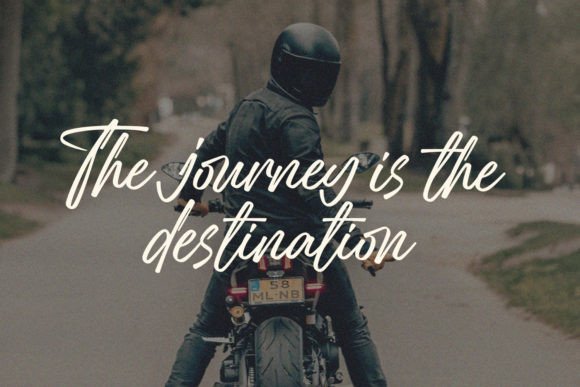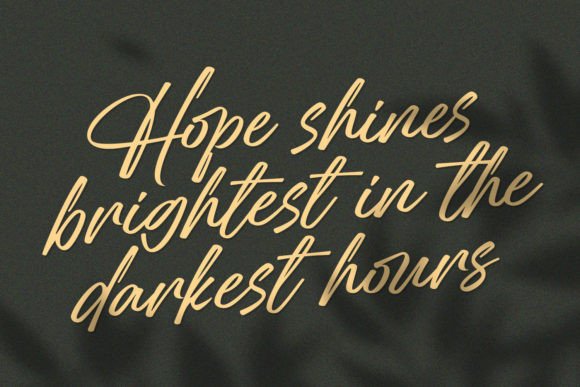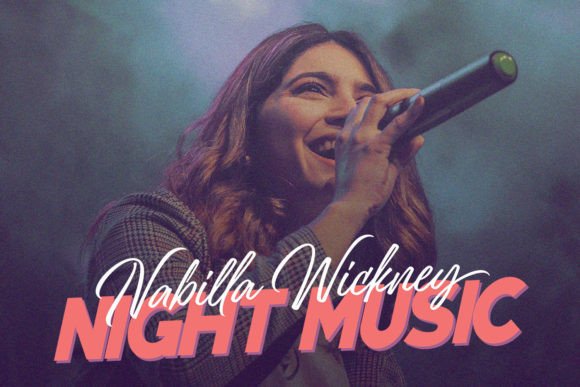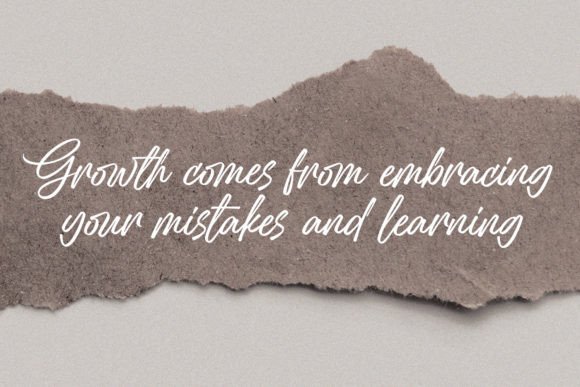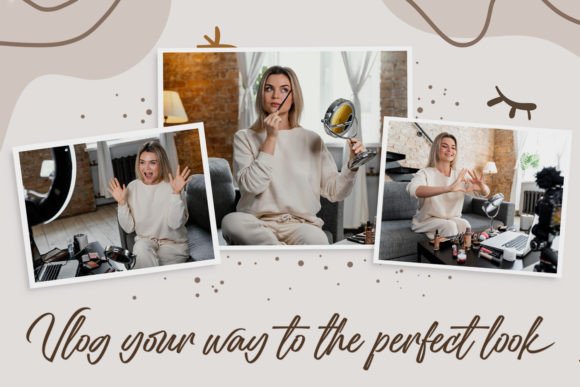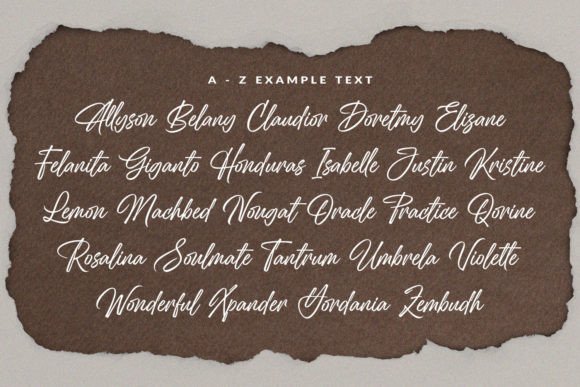
Introducing Antaresia Font: Elevate Your Designs with Elegance
In the world of typography, a well-crafted font can make all the difference in elevating your design to the next level. For designers and crafters seeking to add a touch of sophistication and elegance to their work, Antaresia Font is an exceptional choice. This beautiful, handwritten font is perfect for a variety of design applications, from posters and logotypes to album covers, signatures, and invitations.
The Elegance of Antaresia Font
Antaresia Font is characterized by its elegant, flowing script that exudes refinement and luxury. Its unique, hand-crafted aesthetic lends a personal and distinctive touch to any design project. Whether you’re aiming to create a lasting impression with a bold statement or seeking to add a subtle nuance to your work, Antaresia Font provides the perfect typographic solution.
One of the key benefits of Antaresia Font is its versatility. This font is not limited to a specific design genre or application. Instead, it can be seamlessly integrated into a wide range of projects, including:
- Posters: Create eye-catching posters that command attention with Antaresia Font’s elegant and bold lettering.
- Logotype: Develop a memorable brand identity with a custom logotype that leverages the unique charm of Antaresia Font.
- Album Covers: Add a touch of sophistication to music albums with Antaresia Font’s refined and artistic typography.
- Signatures: Elevate your personal or professional signature with a distinctive and elegant font that speaks to your individual style.
- Invitations: Set the tone for special events with beautifully crafted invitations featuring Antaresia Font.
Why Choose Antaresia Font?
For designers and crafters seeking to make a powerful statement with their typography, Antaresia Font offers several compelling advantages:
- Elegant Aesthetic: Antaresia Font boasts a sophisticated, elegant design that adds a touch of luxury to any project.
- High Versatility: Its adaptability makes it suitable for a wide range of design applications, from digital to print.
- Easy to Read: Despite its elegant and cursive nature, Antaresia Font maintains excellent readability, ensuring your message is conveyed clearly.
- Unique Character: The font’s hand-crafted nature ensures that each letter and word adds a personal touch to your designs.
Tips for Using Antaresia Font
To maximize the impact of Antaresia Font in your designs, consider the following tips:
- Pair with Complementary Fonts: Combine Antaresia Font with simpler, sans-serif fonts for contrast and visual hierarchy.
- Experiment with Colors: While Antaresia Font looks stunning in black, don’t hesitate to experiment with other colors that match your brand’s palette or design theme.
- Adjust Letter Spacing: For optimal readability and aesthetics, adjust the letter spacing according to the specific requirements of your project.
- Consider Size Variations: Use different sizes of Antaresia Font to create a visual hierarchy and emphasize key elements of your design.
Antaresia Font is a versatile and elegant handwritten font that offers designers and crafters a powerful tool for creating visually stunning and impactful designs. Its unique blend of sophistication, readability, and adaptability makes it an excellent choice for a wide range of projects. Whether you’re looking to elevate your brand’s typography, craft beautiful invitations, or simply add a touch of elegance to your work, Antaresia Font is sure to exceed your expectations.
Embrace the elegance and versatility of Antaresia Font in your next design project and experience the transformative power of typography.